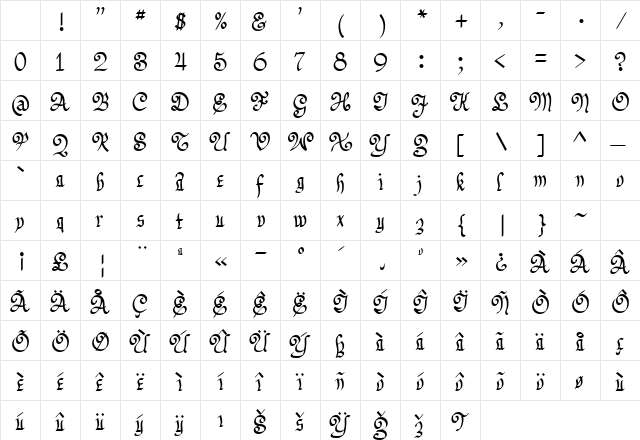
Complete LastBigFling Bold glyph index. Displaying only characters natively supported by LastBigFling Bold font.
LastBigFling is a composed and adaptable typeface that performs quietly and consistently across a wide range of design contexts. Its bold stroke weight gives it real presence on the page.